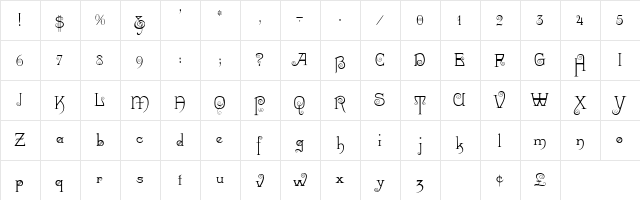
Riccio Display Script SSi Regular Font Preview
Riccio Display Script SSi Regular
Design Context for Riccio Display Script SSi Typeface
Riccio Display Script SSi flows with the natural rhythm of handwritten lettering, making it ideal for designs that call for warmth and personal expression.